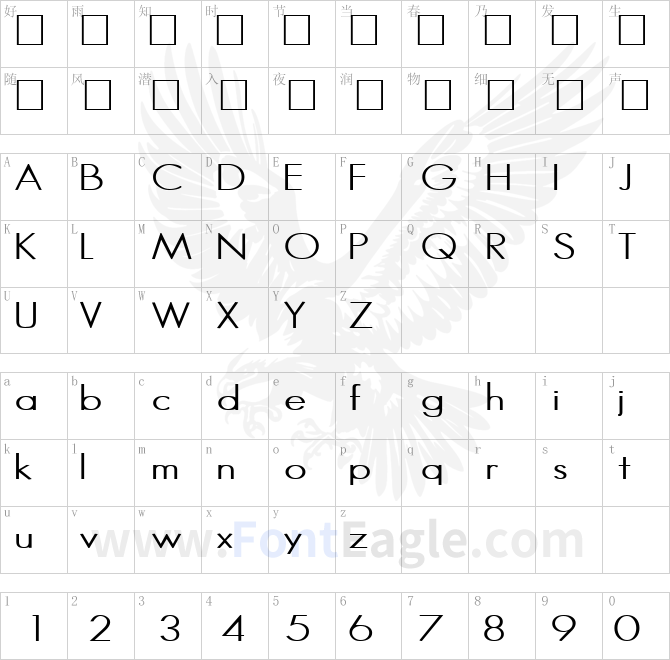
- Font name:HalibutCondensed
- Font Subfamily ID:Weatherly Systems, Inc. HalibutCondensed Regular
- Font Full Name:HalibutCondensed Regular
- Postscript:HalibutCondensed